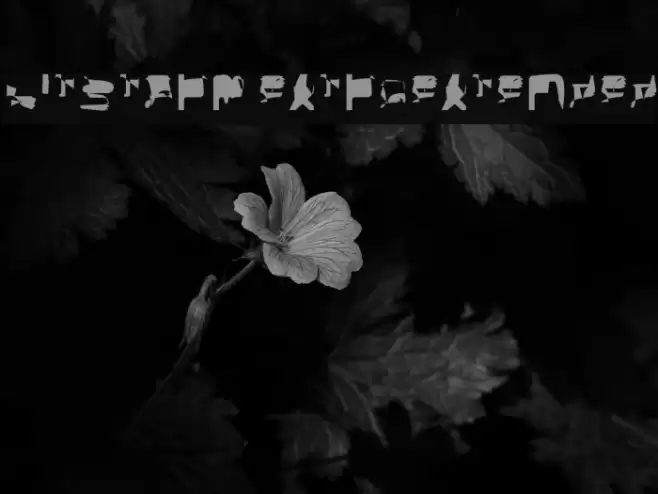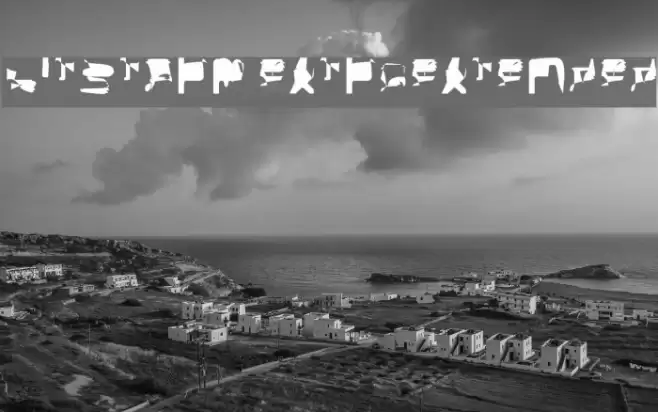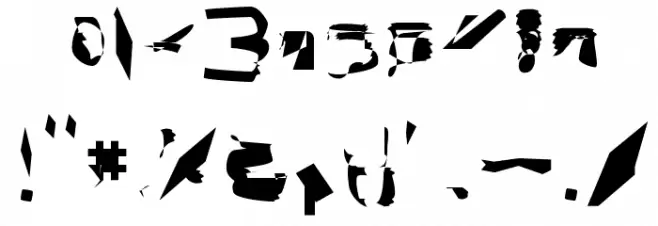
bitstorm extraextended Font
bitstorm extraextended Description
This font features a highly abstract and fragmented design, characterized by sharp angles and irregular shapes that give it a chaotic and dynamic appearance. The letters are heavily stylized, with portions of each character appearing to be torn or cut away, creating a sense of movement and energy. The overall aesthetic is bold and unconventional, making it stand out as a unique choice for creative projects. The font's distinct style may challenge readability at smaller sizes, but its striking visual impact is ideal for artistic and experimental uses.
A bold, abstract font with fragmented, dynamic shapes from Uncategorized fonts.
- Proposed Projects: Ideal for album covers, avant-garde posters, experimental art projects, and edgy branding materials.
- Overall Style: Modern, Abstract
- Use Case: Headlines, Logos, Artistic displays